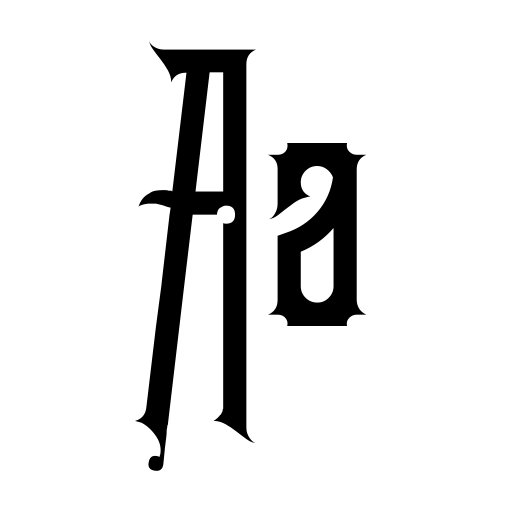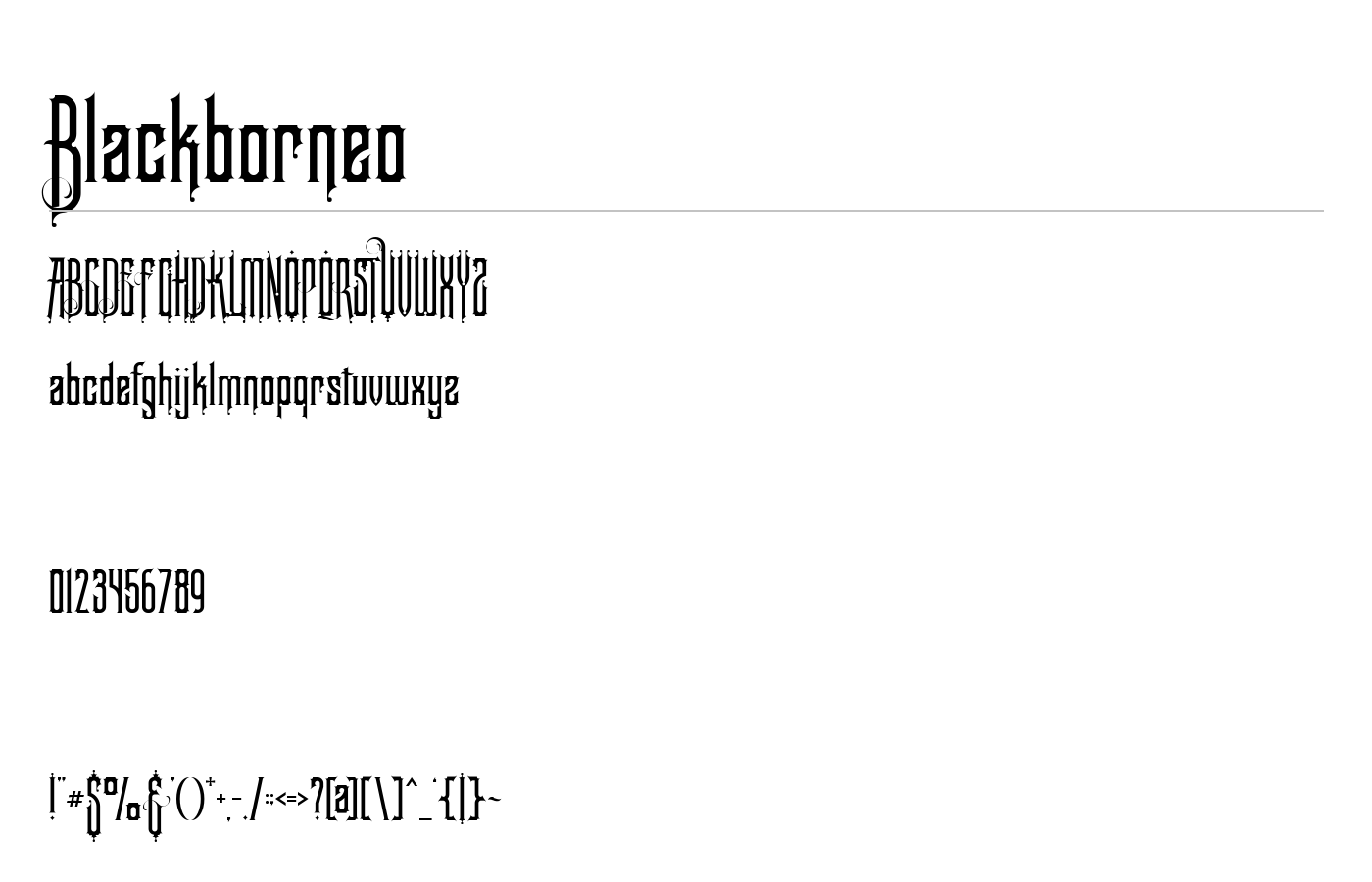
Blackborneo is a narrow, high-contrast serif font with a dramatic, gothic-inspired style featuring sharp edges and distinctive ornamental details. Its condensed letterforms and elegant flourishes give it a vintage yet bold personality, making it ideal for eye-catching headlines, logos, or branding that seeks a mysterious, edgy, or historic vibe. This font works best in creative design projects where strong visual impact and unique character are needed.
Blackborneo Font
About Blackborneo Font